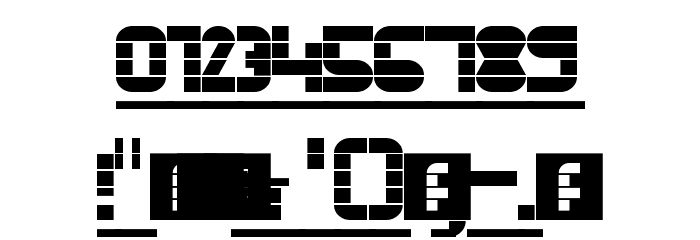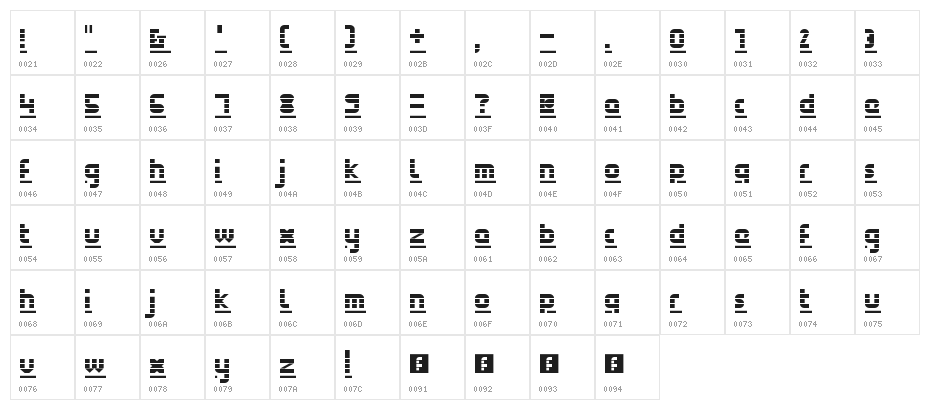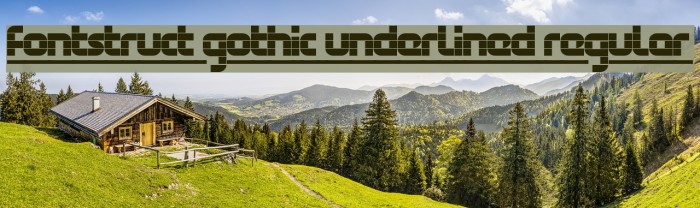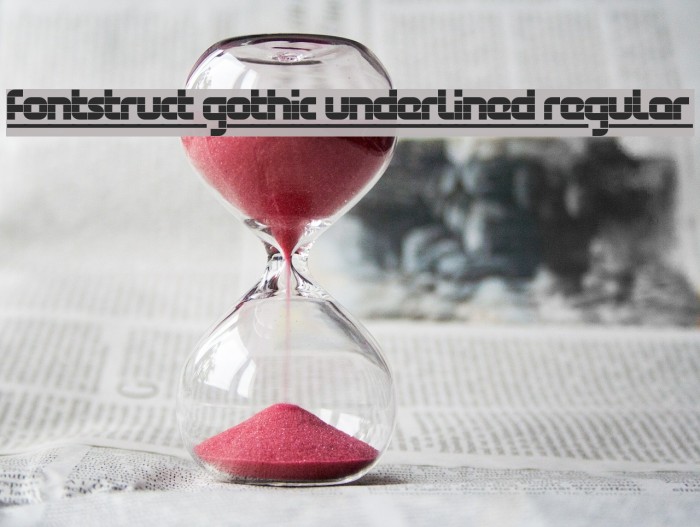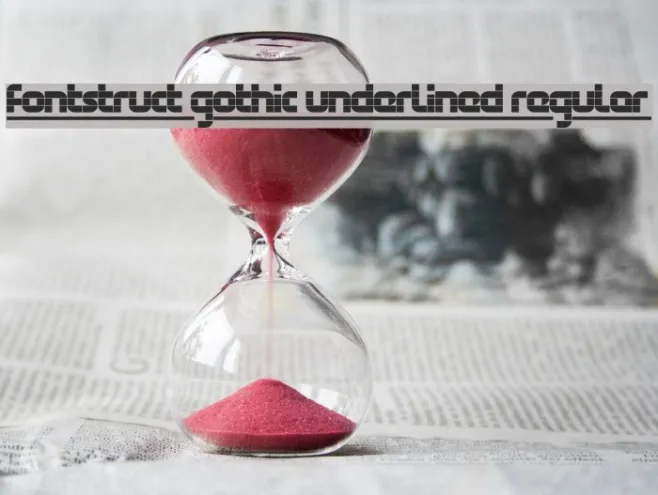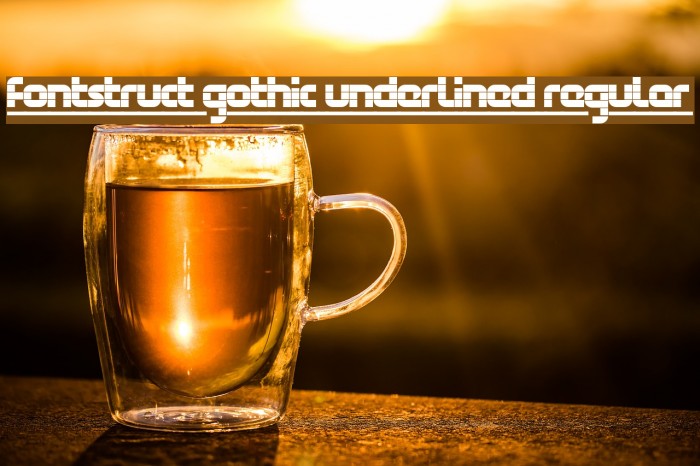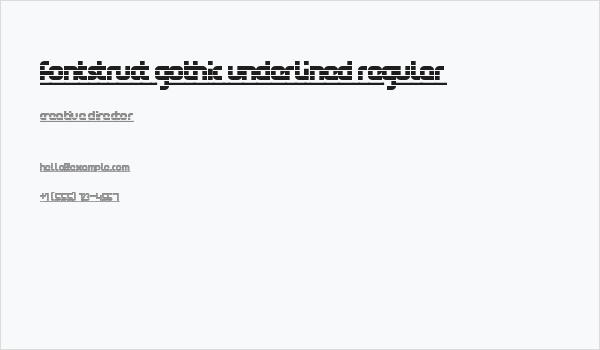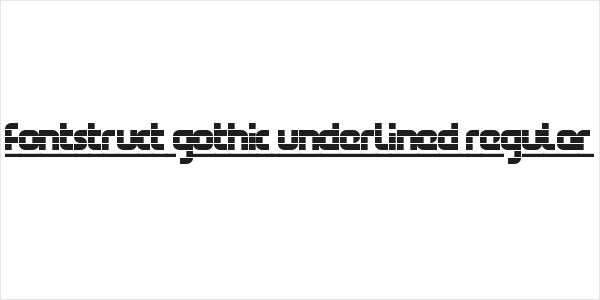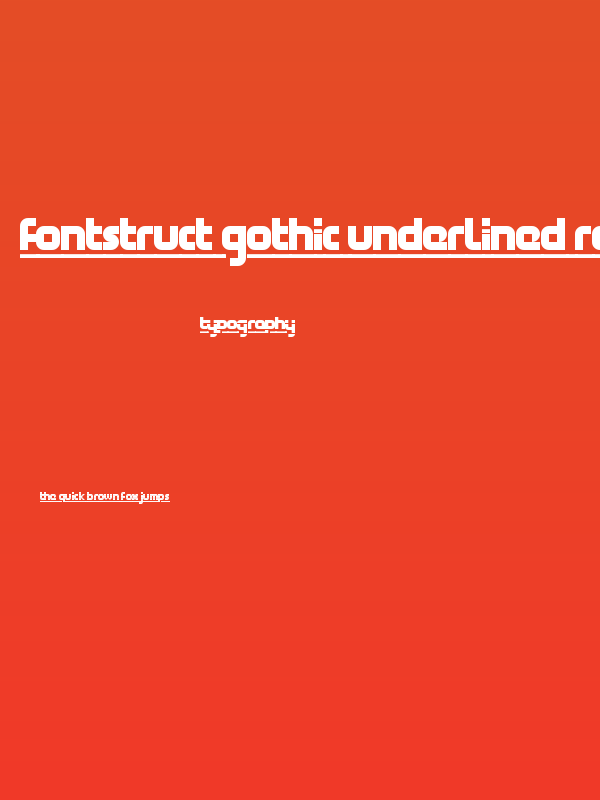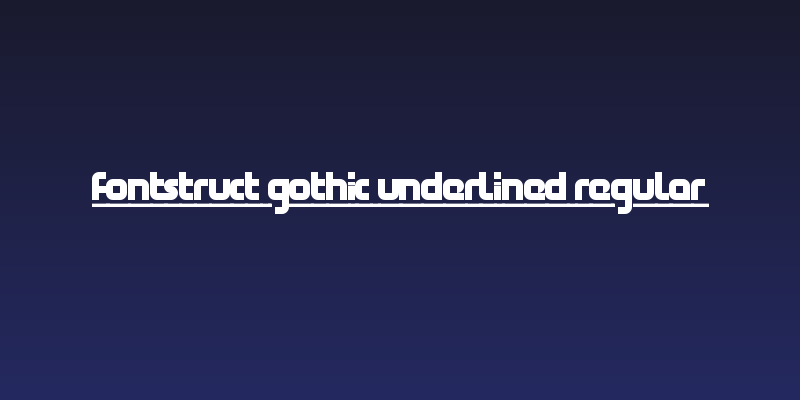
FontStruct Gothic Underlined Regular Font
FontStruct Gothic Underlined Regular Description
This font features a bold, geometric design with a distinct underlined style. Each character is constructed with a series of horizontal and vertical lines, creating a blocky, futuristic appearance. The uppercase and lowercase letters maintain a consistent height, contributing to a uniform look. The numbers and special characters follow the same structural pattern, ensuring visual coherence across all glyphs. The underlining adds a unique touch, enhancing the font's modern and edgy aesthetic.
| Overall Style | Futuristic, Modern |
| Proposed Projects | Ideal for tech-related branding, futuristic posters, video game graphics, and digital art projects. |